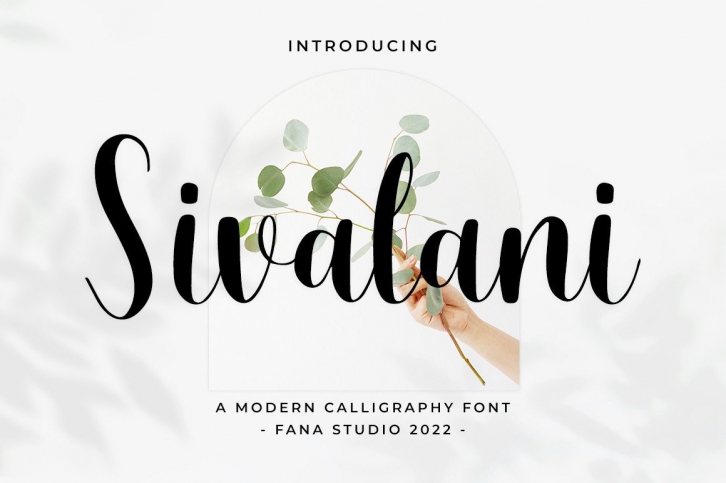
Introducing Sivalani Script, a stylish Script font Style. This beautiful script font offers a personal touch to your latest art project with an elegant, classy, and modern look.
The Sivalani Script offers gorgeous typography perfect for many different projects such as logos & branding, invitations, stationery, wedding designs, social media posts, advertisements, product packaging, product designs, labels, photography, watermarks, special events, or anything that needs handwriting taste.